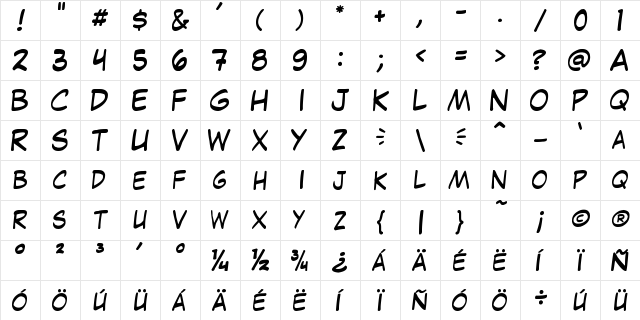
Laffayette Comic Pro Regular
Design Context for Laffayette Comic Pro Typeface
Laffayette Comic Pro has an approachable, lighthearted character — its loose, expressive forms are well-suited to children's content, casual branding, and fun-first design.
Great for children's books, toy packaging, family event branding, and casual consumer-facing design.
Font Pairing: Pairs well with a rounded or humanist sans for body copy, maintaining the friendly tone without relying on Laffayette Comic Pro to carry extended reading.
Pro Tip: Avoid using Laffayette Comic Pro for long passages of text — it works best for headlines, labels, and short calls to action.